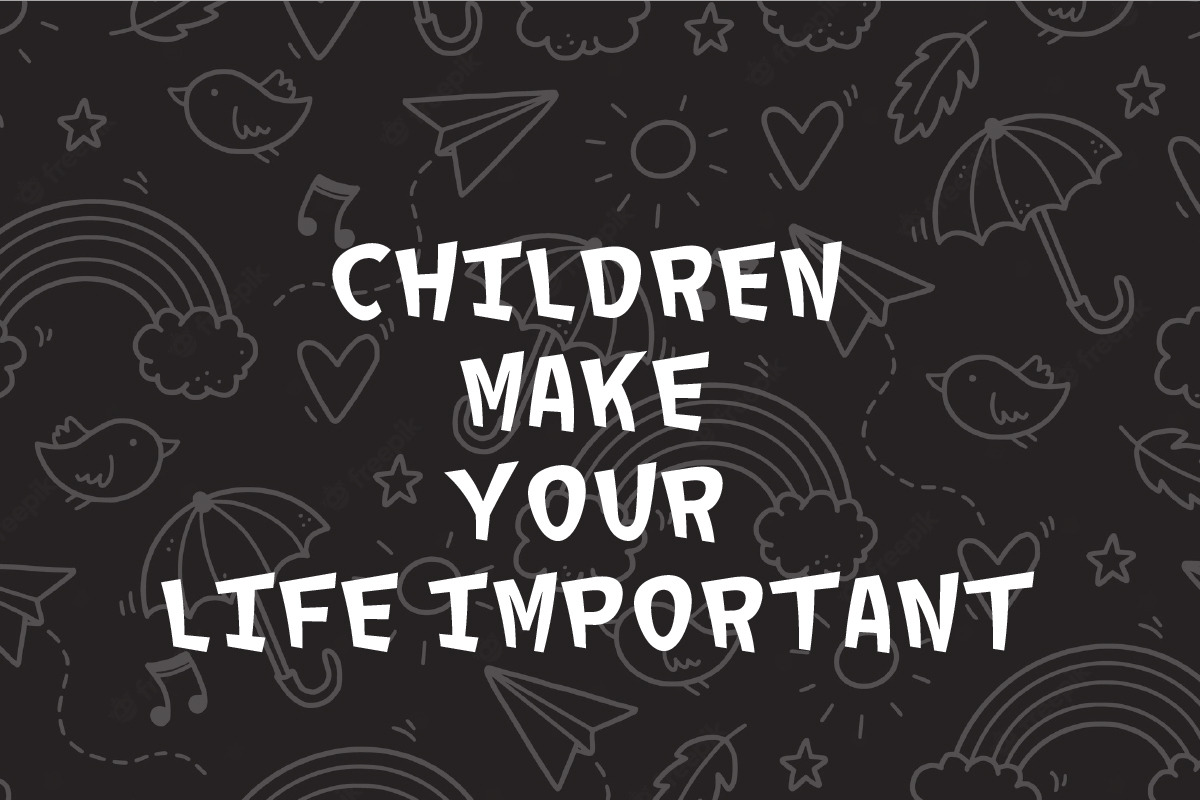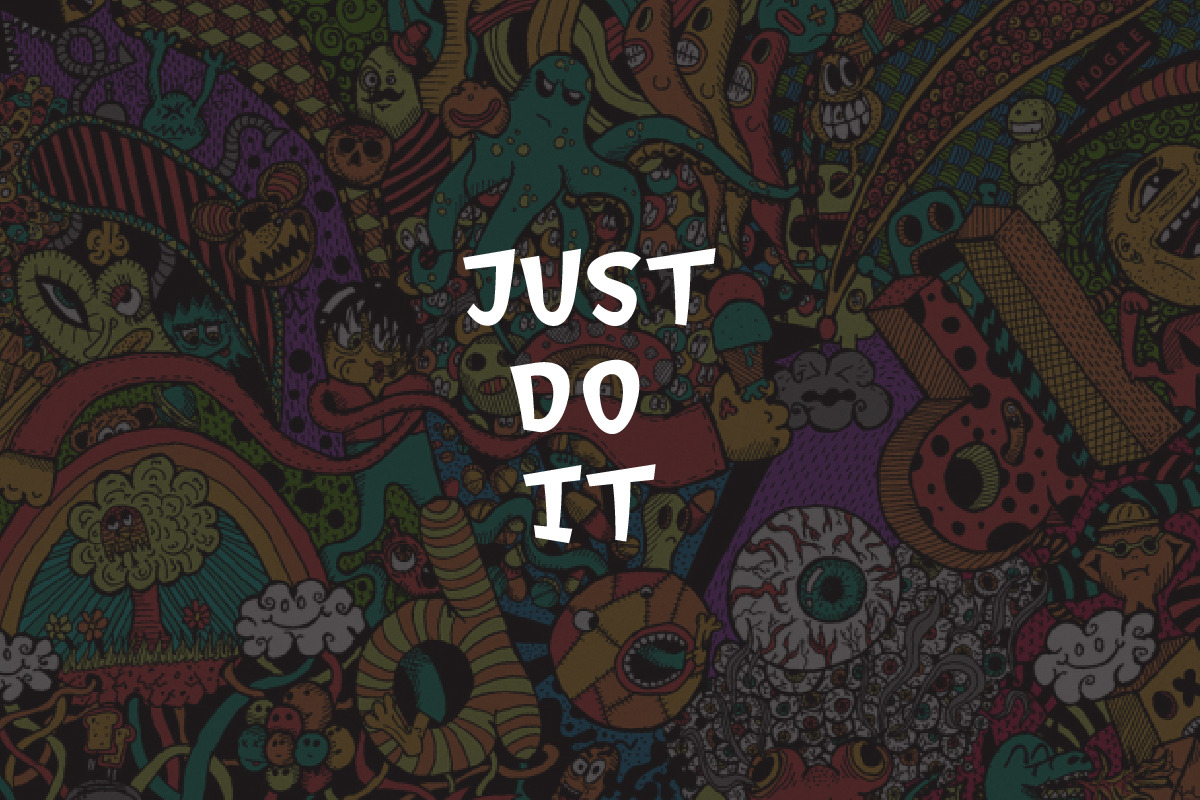
BUCKLER
Buckler is an incredibly quirky and sweet display font. Whether you use it for cartoon-related designs, children's games, or just any creation that requires a lovely touch, this font will be an amazing choice.